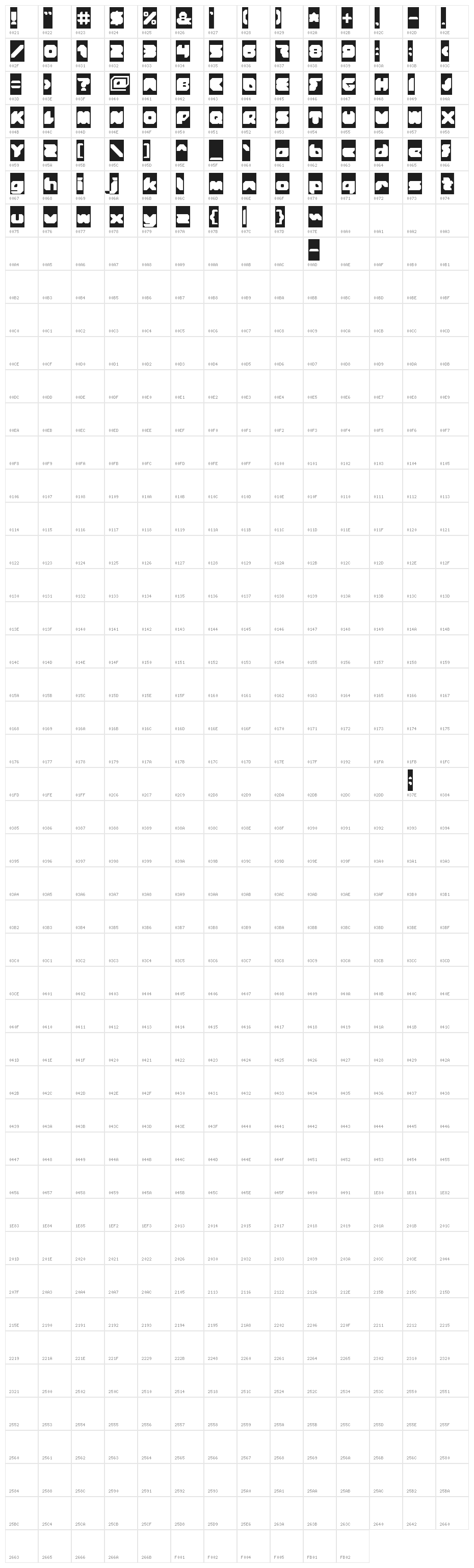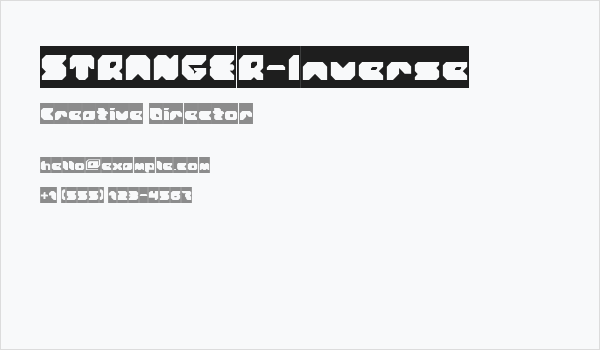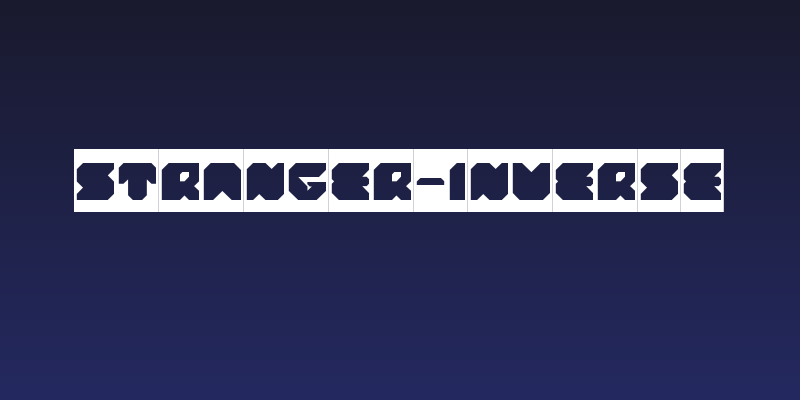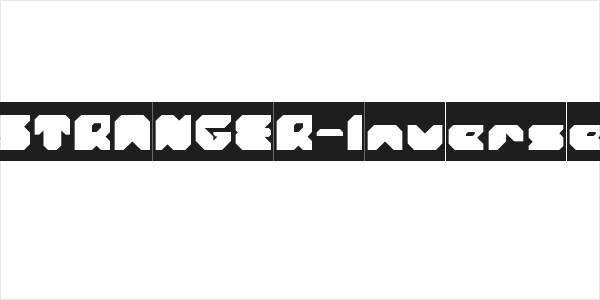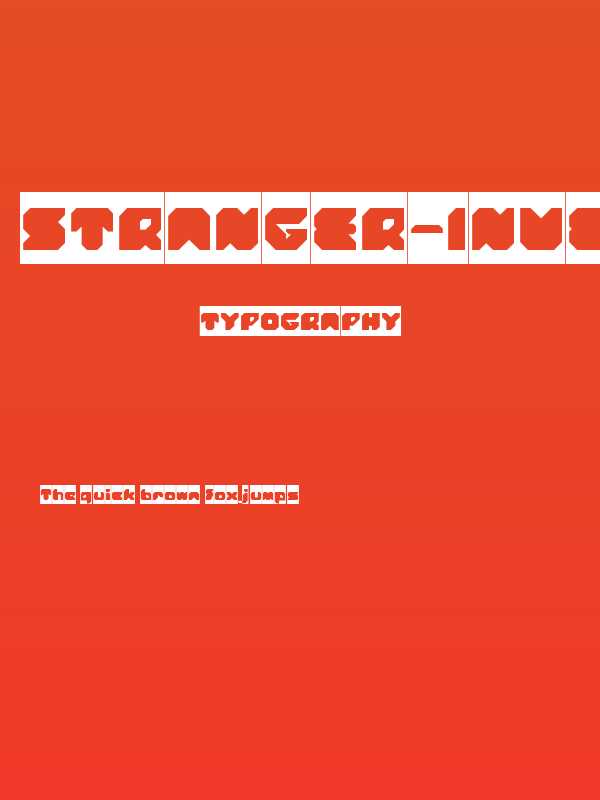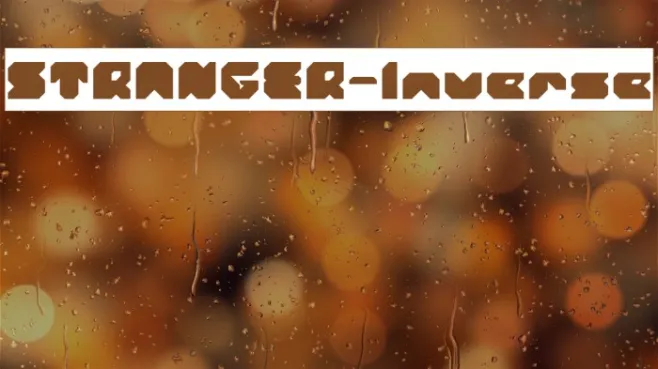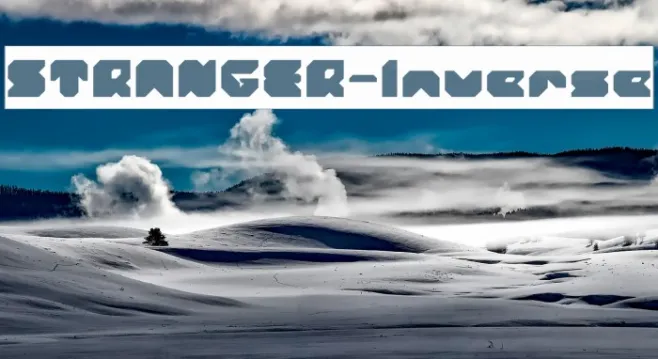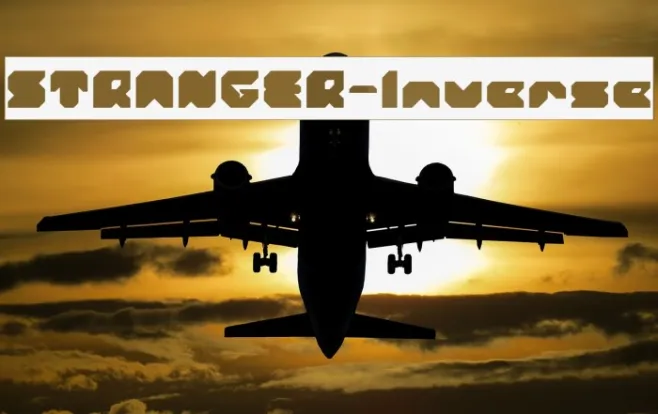
STRANGER-Inverse Font
STRANGER-Inverse Description
This font features a bold, geometric style with a strong presence. Each character is crafted with sharp angles and distinct edges, creating a striking and modern appearance. The uppercase and lowercase letters maintain a consistent blocky form, while the numbers and special characters follow the same design principles. The font's unique structure makes it highly suitable for attention-grabbing headlines and titles. Its boldness and distinctiveness ensure that it stands out in any design context.
| Proposed Projects | Ideal for posters, logos, video game graphics, and any project requiring a bold, modern look. |